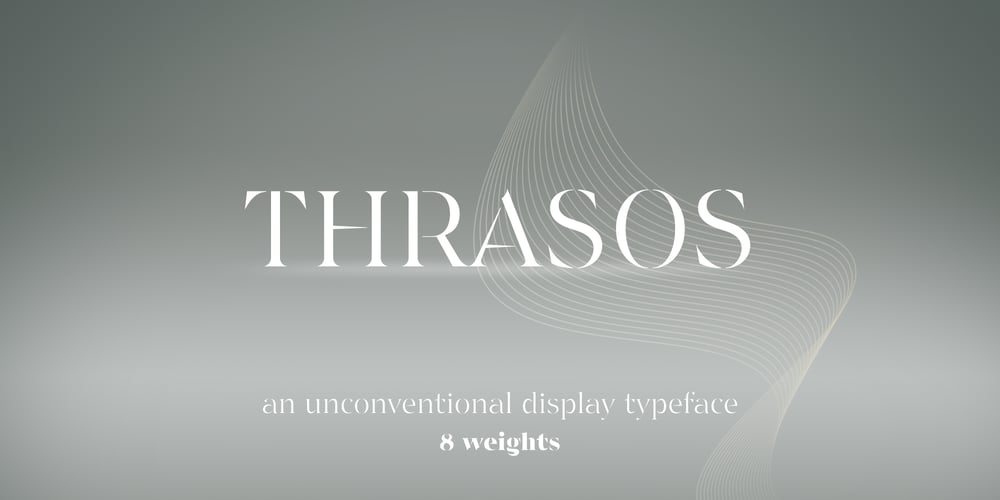
Thrasos Font Family was designed by Pedro Madeira and published by Multiformis. Thrasos contains 8 styles and family package options. Thrasos was created as display typeface, with its vanishing stroke creating a stencil-like effect. Its unconventional characteristics gives it an elegant, but also bold character, and an overall venturous feeling.The combination of sharp edges with soft curves contributes to a dynamic and interesting look.This typeface is oriented towards branding and advertising, as well as titles and headings in magazine publications, but its uses are extremely broad.